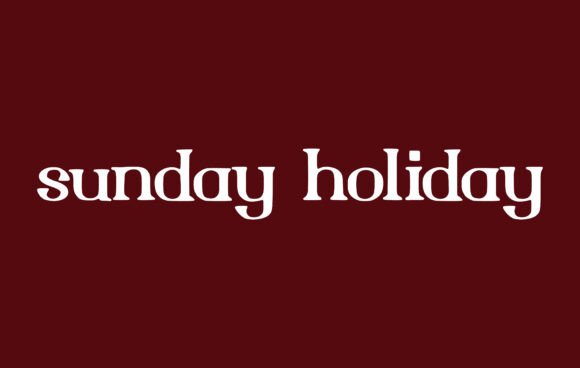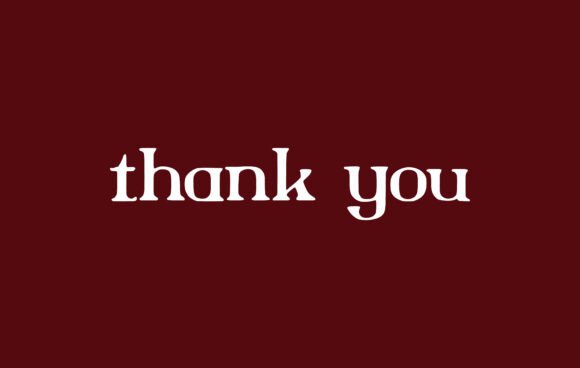
Introduction to Little Hands Font
As a designer, there’s nothing quite like the thrill of bringing a creative project to life. You’re sifting through a sea of fonts, searching for the perfect combination of style and substance to elevate your vision. And then, you stumble upon it – a font that speaks to you, that whispers sweet nothings of romance and elegance. For many designers, that font is Little Hands Font, an authentic serif font with a touch of whimsy that’s sure to captivate your audience.
But what makes Little Hands Font so special? For starters, its legibility makes it a versatile choice for both title and body text, ensuring that your message is conveyed with clarity and precision. Whether you’re working on a magazine headline, social media campaign, or wedding invitation, this font has the potential to take your design to the next level.
Key Features of Little Hands Font
- Unique, playful design suitable for creative projects and children’s materials
- Features a clean and modern aesthetic, ideal for various design applications
Honest Review: Little Hands Font
As a designer, I’m always on the lookout for high-quality design resources that can elevate my creative projects. The Little Hands Font caught my eye, and I decided to give it a try.
- ✨ Unique and playful design style that’s perfect for children’s books, educational materials, and family-themed projects.
- ⚠️ Limited font styles and weights available, which might not be ideal for projects that require a wide range of font options.
Overall, I think the Little Hands Font is a great addition to any designer’s toolkit, especially for projects that require a fun and playful touch. While it may have some limitations, its unique design style and high-quality font make it a valuable resource for designers.
The Little Hands Font is a unique, high-quality design resource ideal for creative projects requiring a playful touch. This font features a transparent background, making it versatile for various design applications.
To maximize the impact of the Little Hands Font, use it in combination with other design elements that complement its playful style. Experiment with different font sizes, colors, and arrangements to achieve the desired effect.
The Little Hands Font is suitable for various design applications, including children’s party invitations, educational materials, and creative marketing campaigns. Its transparent background makes it easy to overlay on images or use as a standalone design element.